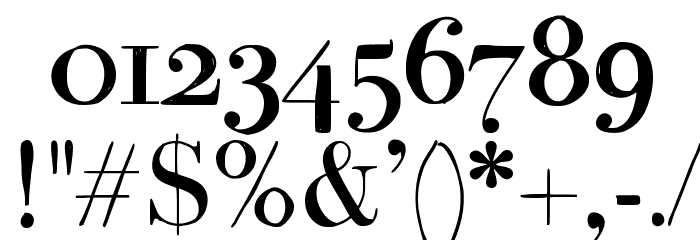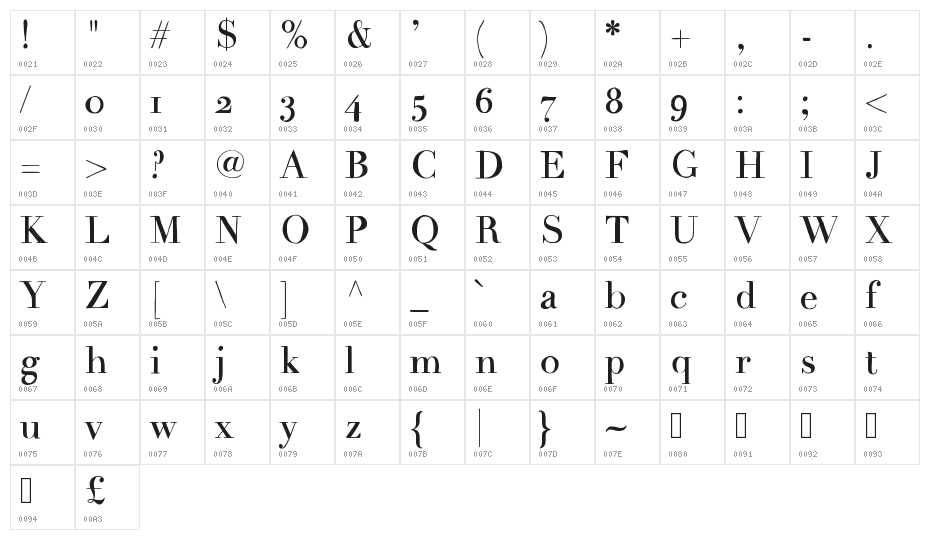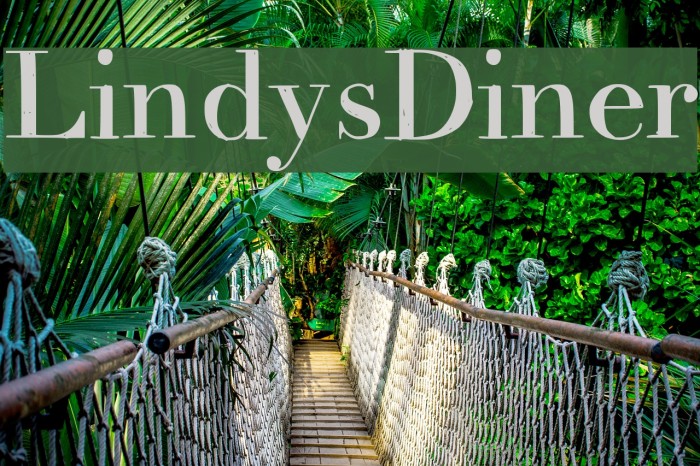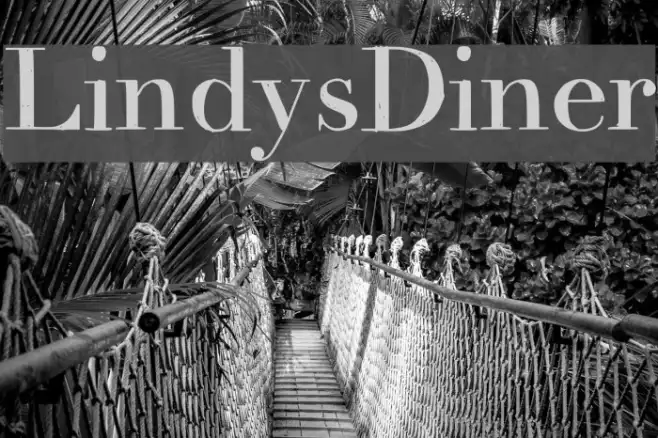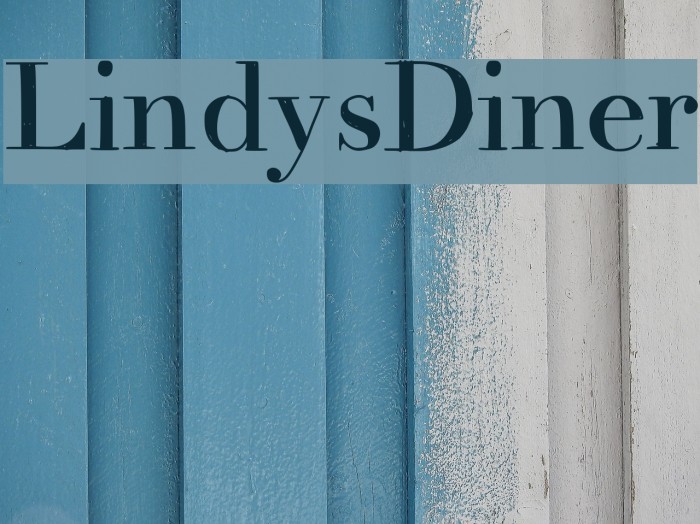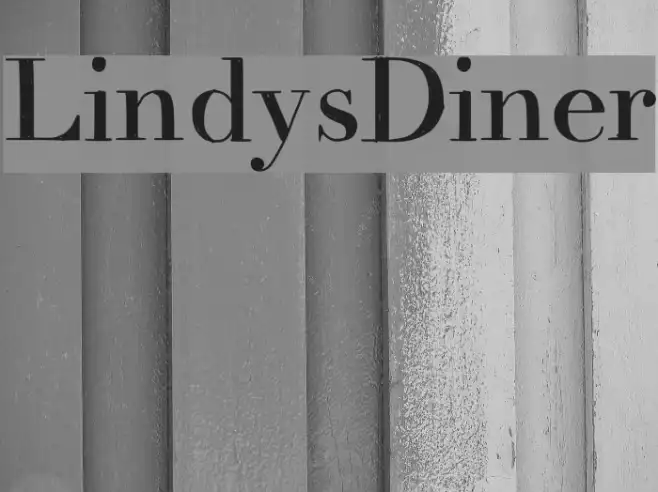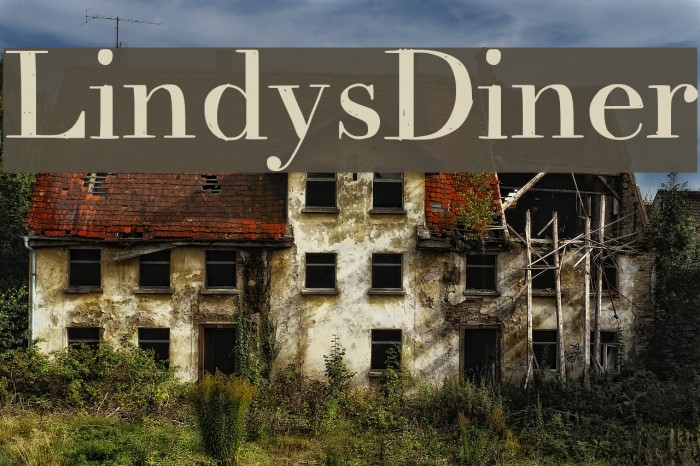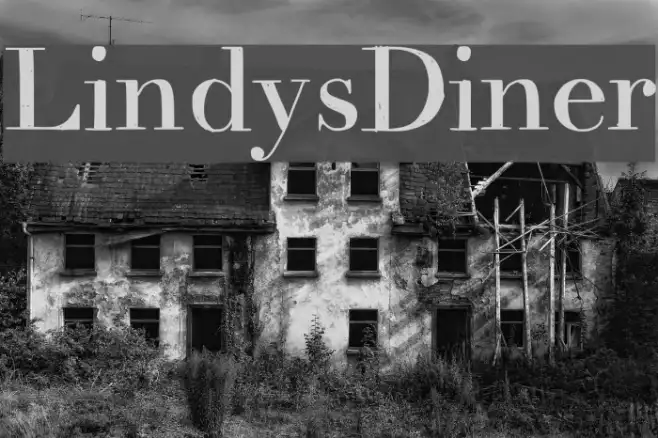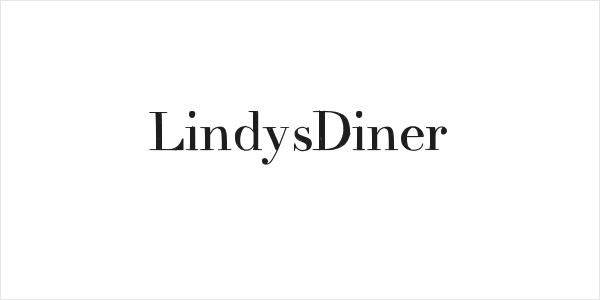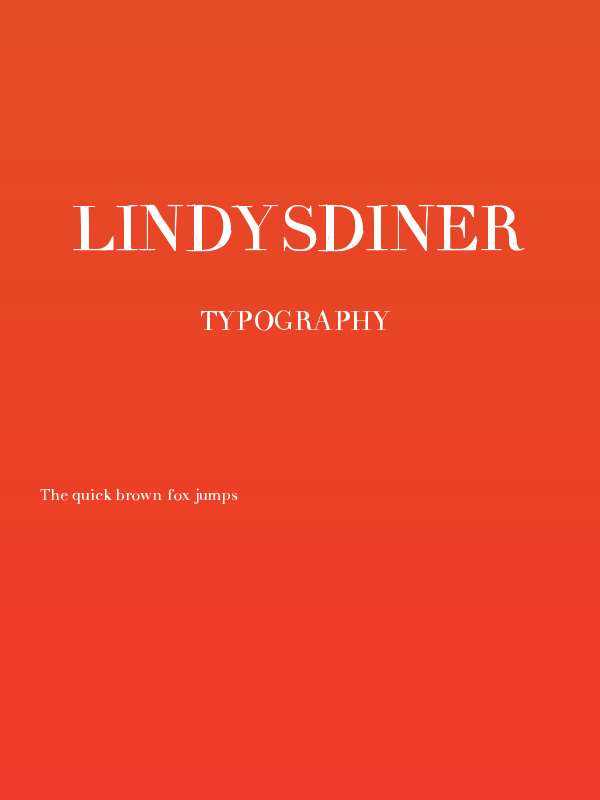
LindysDiner Font
LindysDiner Description
This font features a classic serif style with elegant and refined strokes. The uppercase letters are bold and commanding, while the lowercase letters maintain a sophisticated and balanced appearance. The numerals are distinct and clear, making them easily readable. Special characters are designed with a touch of flair, adding to the overall aesthetic appeal. The font's high contrast between thick and thin strokes gives it a dynamic and stylish look, suitable for a variety of design applications.
| Use Case | Headlines, Logos, Editorial design |
| Proposed Projects | Ideal for editorial design, book covers, luxury branding, and formal invitations. |